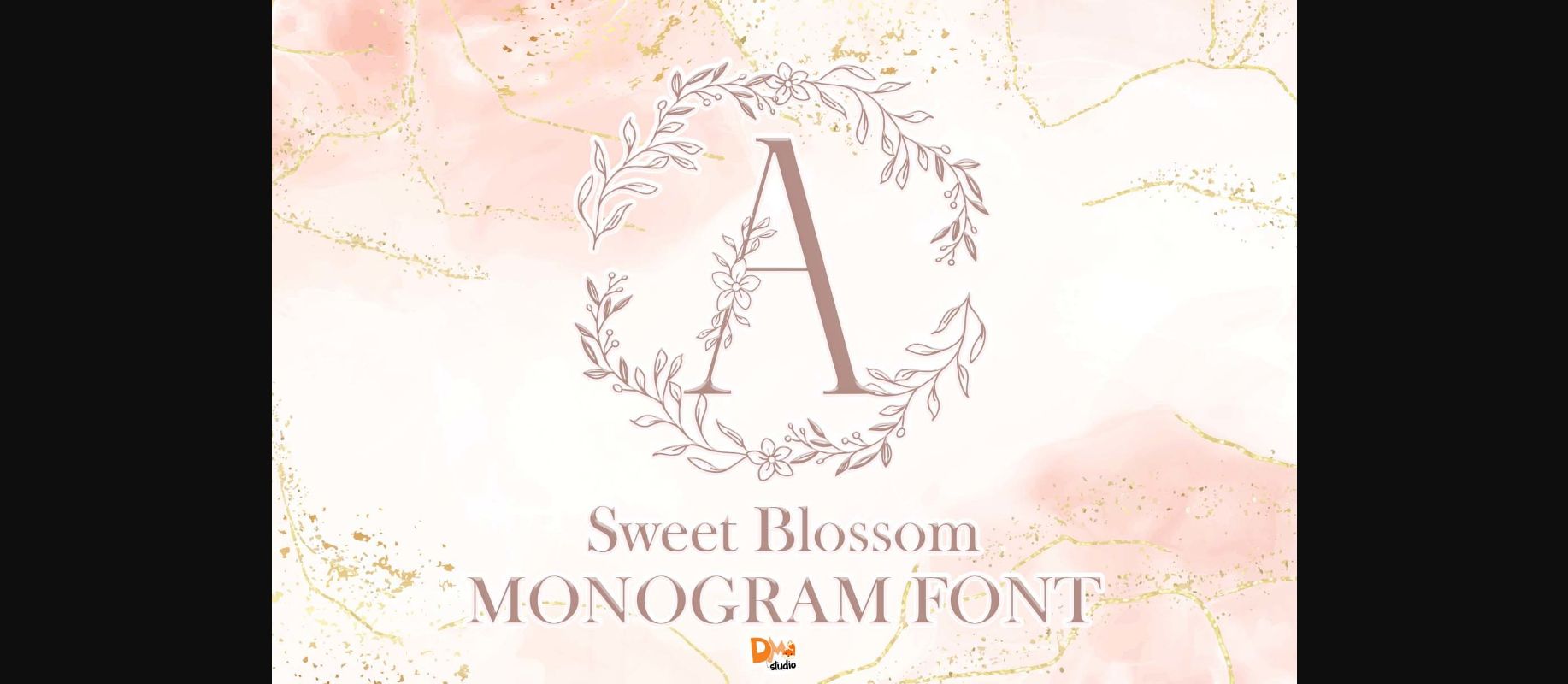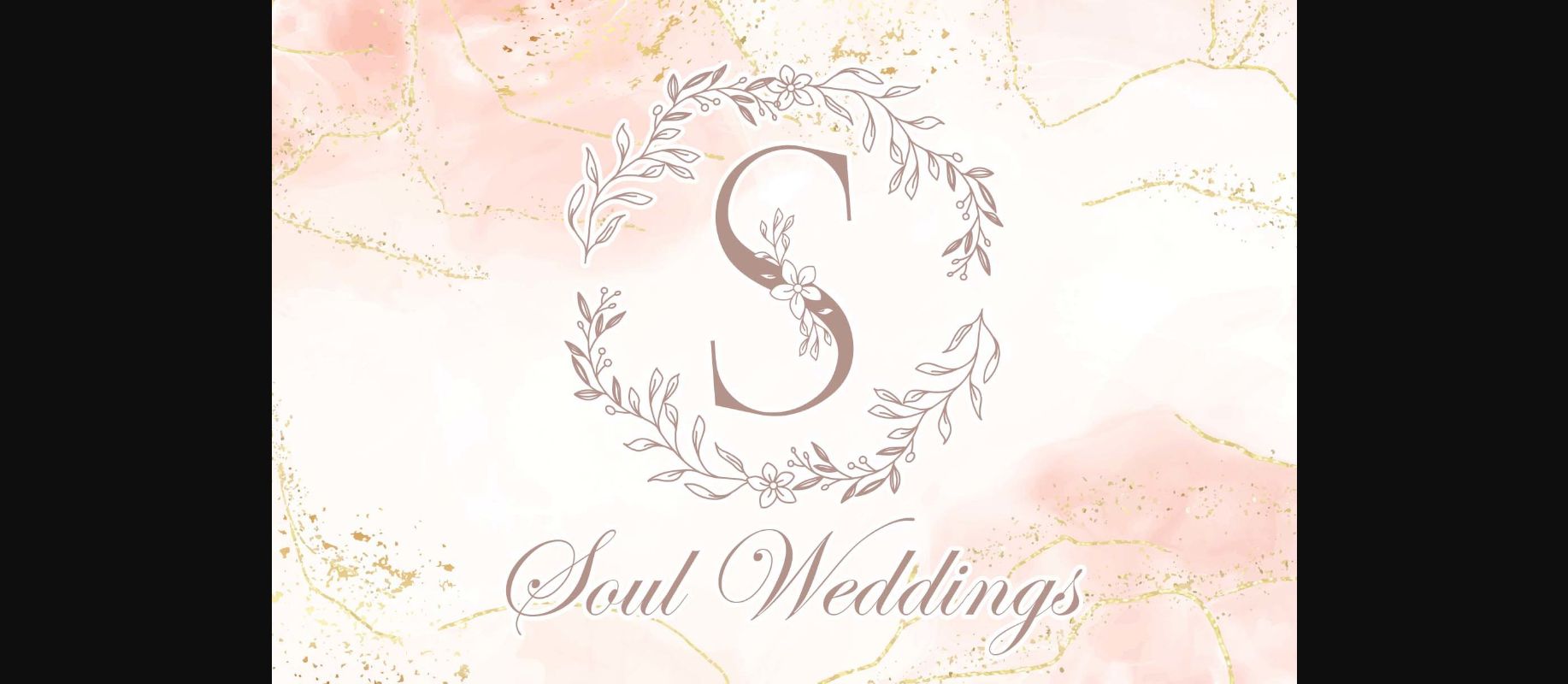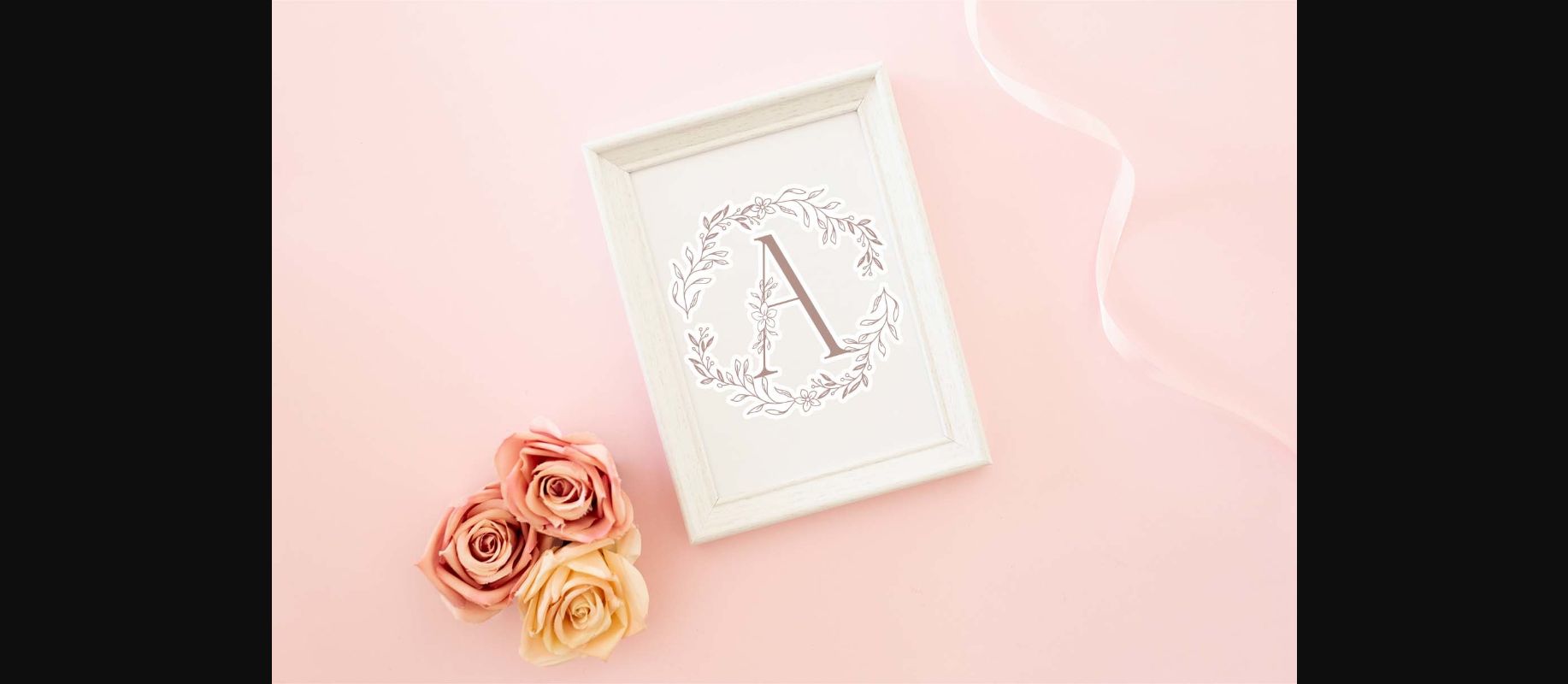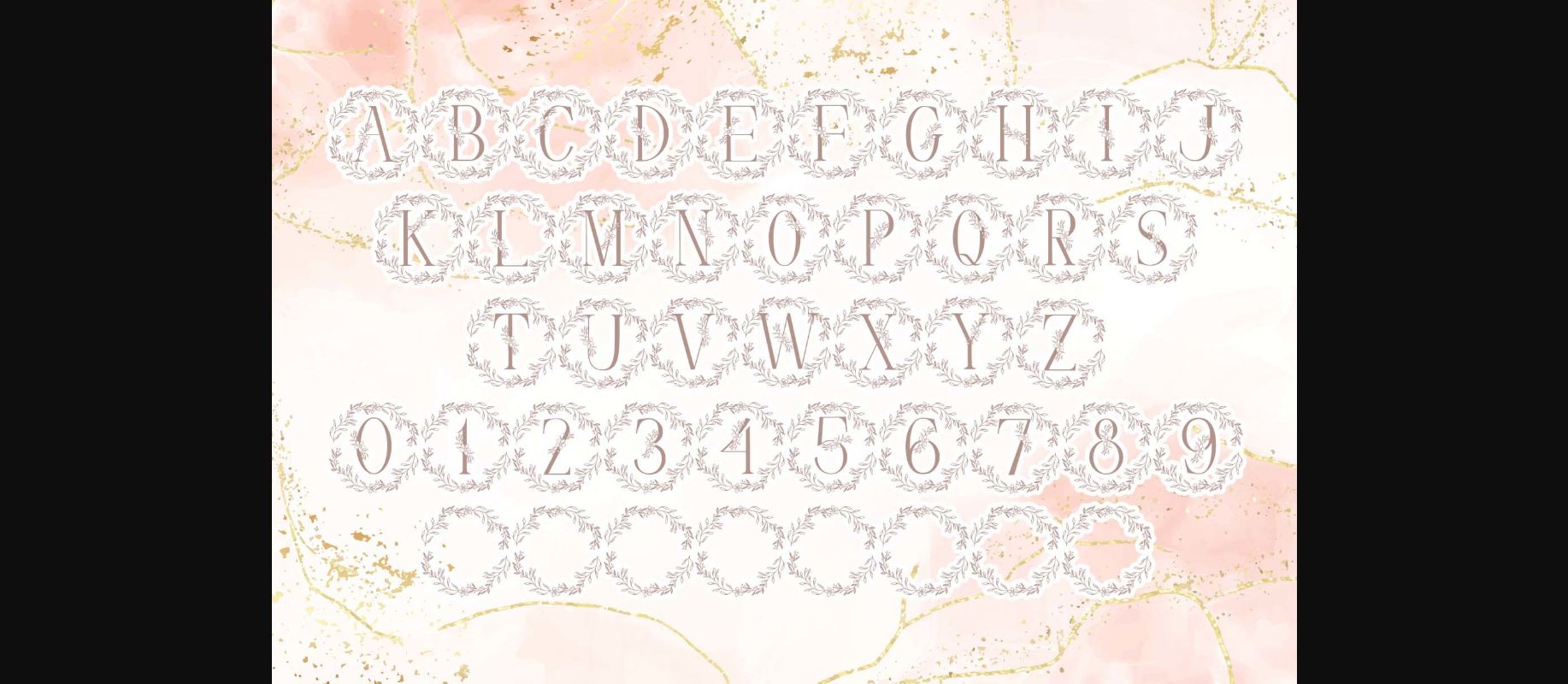
Sweet Blossom Monogram Font
About Sweet Blossom Monogram Font
Sweet Blossom Monogram is a highly detailed and beautiful decorative font. Add this lovely-looking font to each of your love letters, wedding invitations, or favorite design ideas, and you will be astounded by the outcome.